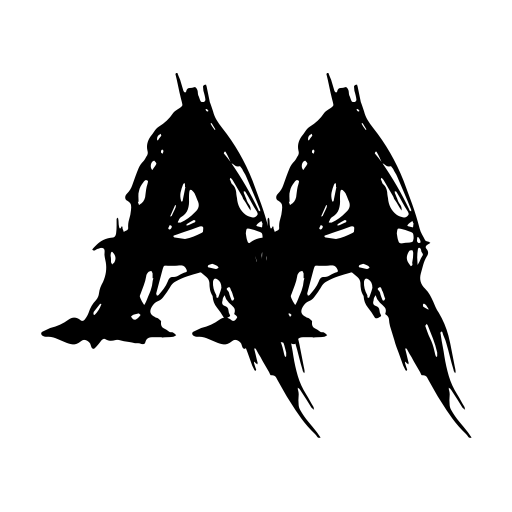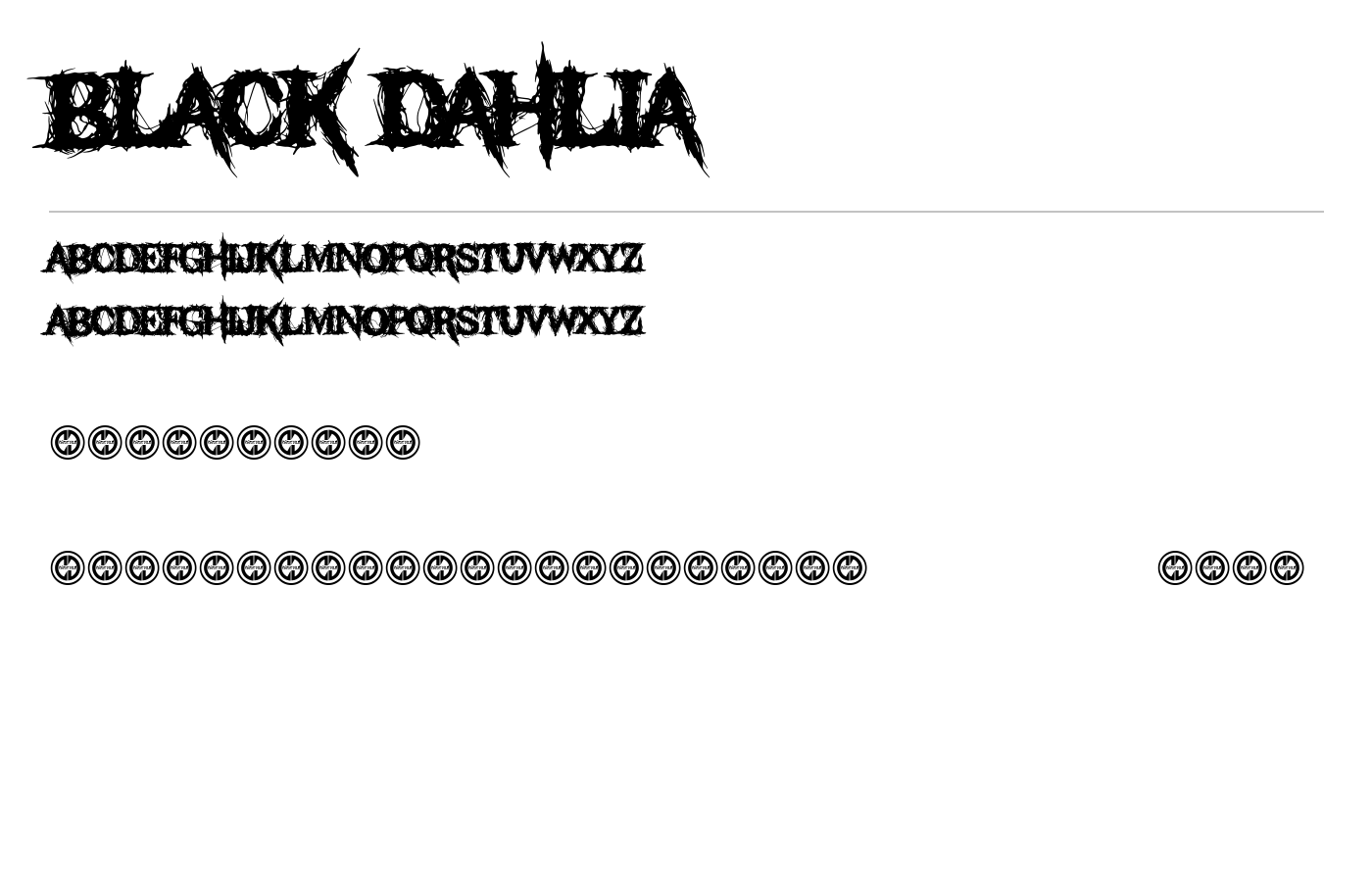
Black Dahlia is a highly decorative display font with a dark, distressed texture that evokes a sense of mystery and edginess. Its jagged, thorn-like strokes and irregular shapes give it a striking, gothic feel, making it perfect for horror-themed projects, bold branding, or artistic designs seeking a dramatic and intense look. This font works best in headlines or logos where its unique style can stand out and create a memorable impact.
Black Dahlia Font
About Black Dahlia Font
| Font family | Black Dahlia Font |
| Designer | Chris Vile |